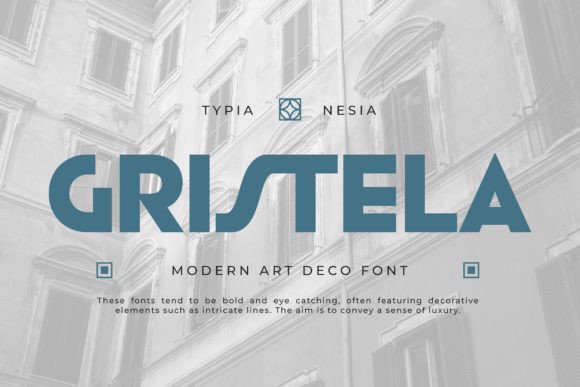
Gristela Font: Elevate Your Design with Modern Art Deco Elegance
In the realm of typography, fonts play a pivotal role in defining the aesthetic and tone of any design project. Among the myriad of typefaces available, Gristela Font stands out as a beacon of modern sophistication, blending the opulence of the Art Deco movement with the sleekness of contemporary design. This article delves into the world of Gristela, exploring its unique characteristics, versatility, and the creative possibilities it offers to designers and brands alike.
Introduction to Gristela Font
Gristela is a modern art deco font that has been meticulously crafted to bring a touch of elegance and boldness to any project. Its geometric design, inspired by the Art Deco era, is characterized by clean lines, bold shapes, and a sense of luxury. However, what sets Gristela apart is its infusion with contemporary design elements, making it not just a nostalgic nod to the past but a fully modern typeface suitable for a wide range of applications.
Key Design Elements of Gristela
The design of Gristela is a thoughtful combination of traditional Art Deco motifs and modern typographic trends. Its key features include:
- Geometric Shapes: Gristela’s characters are built on geometric shapes, providing a clean and structured appearance.
- Bold and Stylish: The font exudes confidence and luxury, making it perfect for headlines, logos, and any design element that requires emphasis.
- Versatility: Gristela is designed to be versatile, performing exceptionally well in both print and digital mediums.
- Feature-Rich: The font comes with a range of features, including multiple weights, styles, and possibly even variable fonts, to support a wide array of creative needs.
Applications of Gristela Font
Gristela’s adaptability makes it suitable for a myriad of design projects. Here are some areas where Gristela truly shines:
- Branding: Use Gristela to create memorable logos and brand identities that stand out.
- Packaging: Add a touch of sophistication and modernity to product packaging.
- Editorial Design: Elevate magazines, newspapers, and digital publications with Gristela’s elegant and readable design.
- Event Invitations: Make a statement with wedding invitations, event posters, and other ceremonial announcements.
- Posters and Advertisements: Gristela’s boldness and style make it perfect for creating eye-catching posters and advertisements.
Seamless Transition Between Print and Digital
In today’s multi-platform world, a font’s performance across different mediums is crucial. Gristela excels in both print and digital formats, offering:
- High Resolution: Its clear and defined features ensure that Gristela looks stunning in high-resolution prints.
- Digital Optimization: The font is optimized for digital use, ensuring it remains crisp and legible on screens of all sizes.
This versatility allows designers to use Gristela across various projects without worrying about adjusting to different formats, providing a consistent and polished look.
Supporting Creative Needs
Gristela understands the demands of modern design. With a range of features to support creative needs, including:
- Multiple Weights and Styles: Offering flexibility for designers to choose the perfect weight and style for their projects.
- Variable Fonts: Providing the ability to adjust weight, width, and other parameters on the fly.
- Extensive Character Set: Supporting a wide range of languages and special characters.
Gristela ensures that designers have the tools they need to bring their creative visions to life.
Gristela Font emerges as a powerful tool in the arsenal of modern designers. Its perfect blend of Art Deco elegance and contemporary design elements makes it a versatile and stylish choice for a wide range of projects. Whether you’re looking to create a bold brand identity, design eye-catching packaging, or simply add a touch of sophistication to your editorial designs, Gristela is up to the task. Its performance across both print and digital formats, coupled with its rich feature set, positions Gristela as a go-to font for designers seeking to elevate their work with a touch of modern art deco flair.
Looking to the Future
As design trends continue to evolve, fonts like Gristela are at the forefront, leading the way with their innovative blend of classic and contemporary design. The future of typography looks bright, with typefaces that not only reflect current aesthetic preferences but also offer the flexibility and versatility needed to adapt to emerging trends.